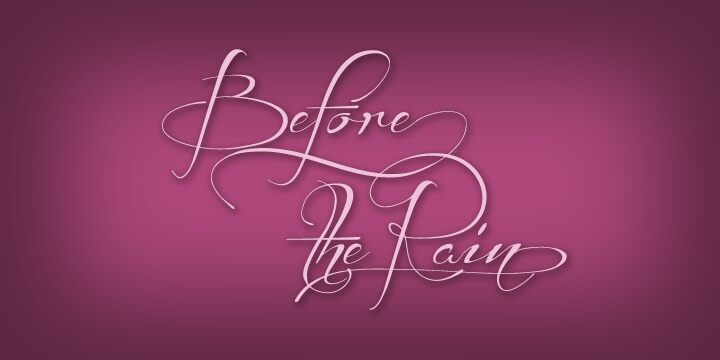
Before the Rain Swashes DEMO
Before the Rain Swashes by Måns Grebäck is a free calligraphic ornament font with long, hairline flourishes and sweeping loops. Its strokes shift dramatically from delicate threads to dark, sharply tapered curves. The forms feel airy and highly gestural, echoing the movement of formal pen lettering.
Wedding stationery is its clearest setting, with the flourishes also suited to fashion packaging and elegant event branding. For book covers, the loops can frame romantic photography or illustrated flowers.